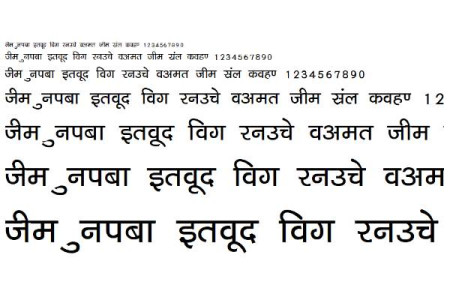
The Devnagari_New Font is a modern and clean typeface, perfect for headlines, body text, posters, logos, branding, and digital or print projects. Its balanced design ensures readability while giving your designs a professional and contemporary look.
Ideal for digital and print designs, Devnagari_New adds clarity and style to every project, making it suitable for both creative and professional applications.
Style: Modern / Clean / Versatile Typeface
Perfect for: Headlines, Body Text, Posters, Logos, Branding & Digital Projects